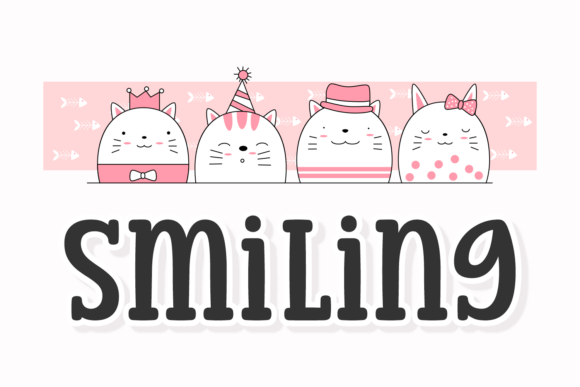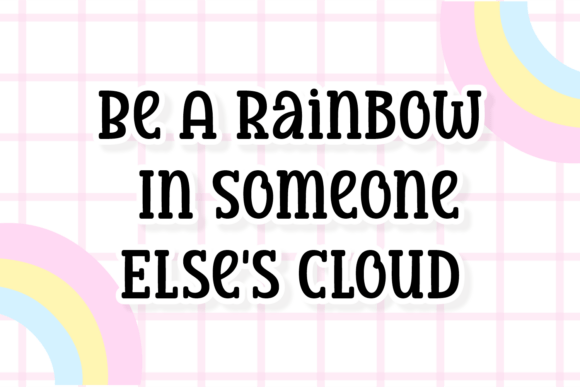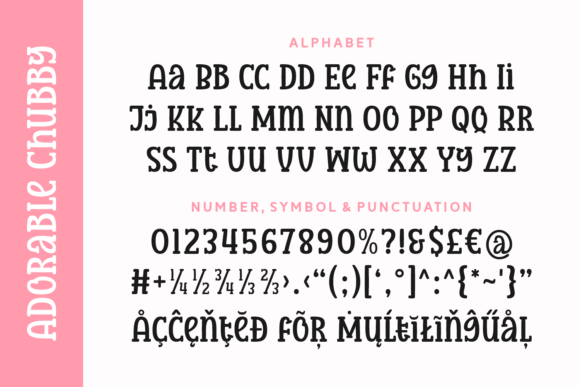
When Creativity Meets Cuteness: The Magic of Adorable Chubby Font
Have you ever been brainstorming a new design project and suddenly, the perfect font pops into your mind, bringing your idea to life? That’s exactly what happened to many designers when they discovered the Adorable Chubby Font. This playful serif font is bursting with charm and personality, making it the perfect choice for children’s designs, cute branding, fun quotes, and joyful stationery.
With its bubbly curves and friendly structure, the Adorable Chubby Font adds a touch of whimsy to any design. Its versatility makes it a valuable asset for designers looking to create engaging and memorable content. Whether you’re working on a children’s book, a nursery decor project, or a social media campaign, the Adorable Chubby Font is sure to bring a smile to your audience’s face.
Adorable Chubby Font Key Features
- Font Family: Adorable Chubby Font is a unique, playful font family that includes multiple weights and styles.
- Unique Characteristics: The font features rounded, chubby characters with a distinctive, childlike charm, perfect for adding a playful touch to designs.
Designer Review: Adorable Chubby Font
First off, let’s talk about what works well with this font. ✨ The rounded shapes and playful feel make it perfect for children’s books, magazines, or any design project that needs a touch of whimsy. The font’s flexibility in terms of size and color also allows for a wide range of creative applications.
Another great aspect of Adorable Chubby Font is its legibility. ✨ Even at smaller sizes, the font remains easy to read, making it a great choice for body text or captions. The font also supports a wide range of languages, which is a plus for designers who need to cater to diverse audiences.
- ⚠️ The font may be too playful or childish for more formal design projects, such as corporate branding or serious publications.
- ⚠️ Some users may find the font too bold or overwhelming, especially when used in large quantities.
- ⚠️ The font may not be ideal for designs that require a lot of fine details or intricate typography.
Overall, Adorable Chubby Font is a fun and versatile font that can add a playful touch to your designs. While it may not be suitable for every project, it’s a great choice for designers who want to inject some whimsy and personality into their work.
For best results, use the font in combination with playful graphics and illustrations to create a whimsical design.
For best results, use the font in combination with bold graphics and textures to create a visually striking design.
For best results, use the font in combination with colorful backgrounds and graphics to create a fun and engaging design.
The Adorable Chubby Font is perfect for:
- Children’s book covers and illustrations.
- Playful advertising and marketing materials.
- Whimsical wedding invitations and stationery.
Alternatives to Adorable Chubby Font
Luckiest Guy
Luckiest Guy is a modern, rounded sans-serif font ideal for creating friendly and approachable designs. It works well in headings and titles, and its bold weight makes it perfect for highlighting important information. Luckiest Guy is more geometric and clean compared to Adorable Chubby Font, which has a more playful and handwritten feel.
Great Vibes is a beautiful, modern script font that adds a touch of elegance to any design. It’s perfect for creating invitations, wedding designs, and other special occasions. Compared to Adorable Chubby Font, Great Vibes is more refined and sophisticated, but still has a playful feel to it.